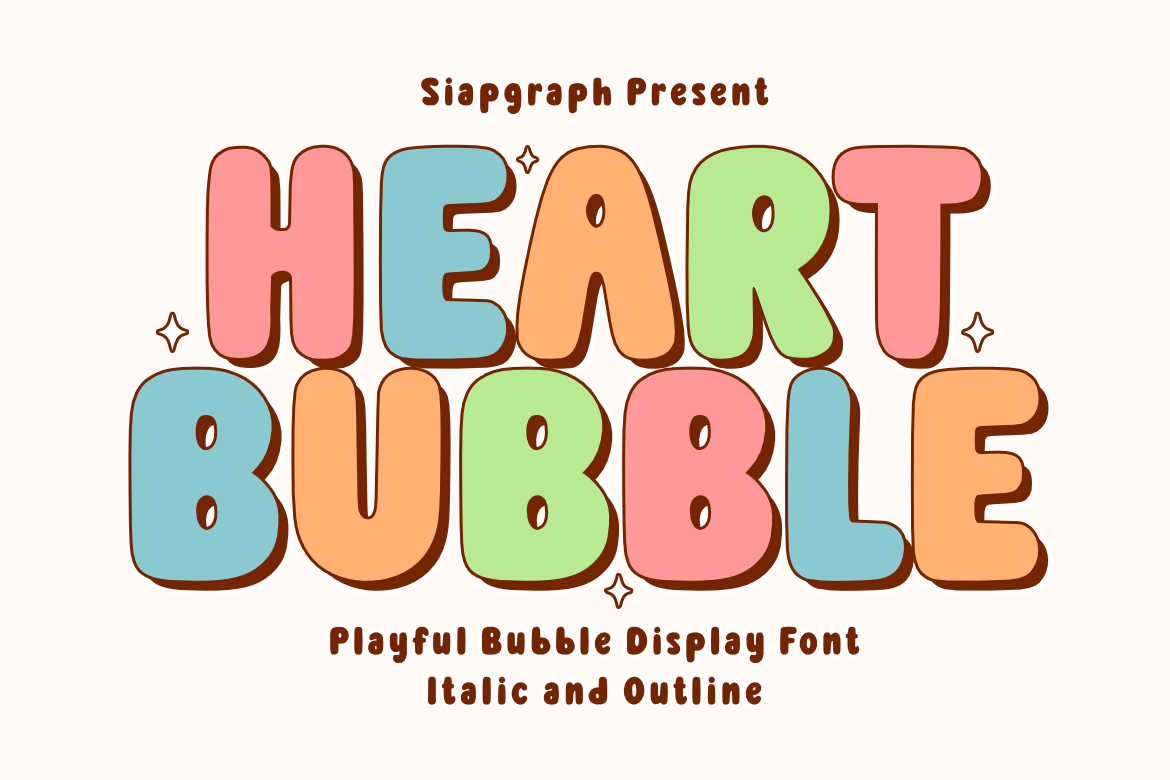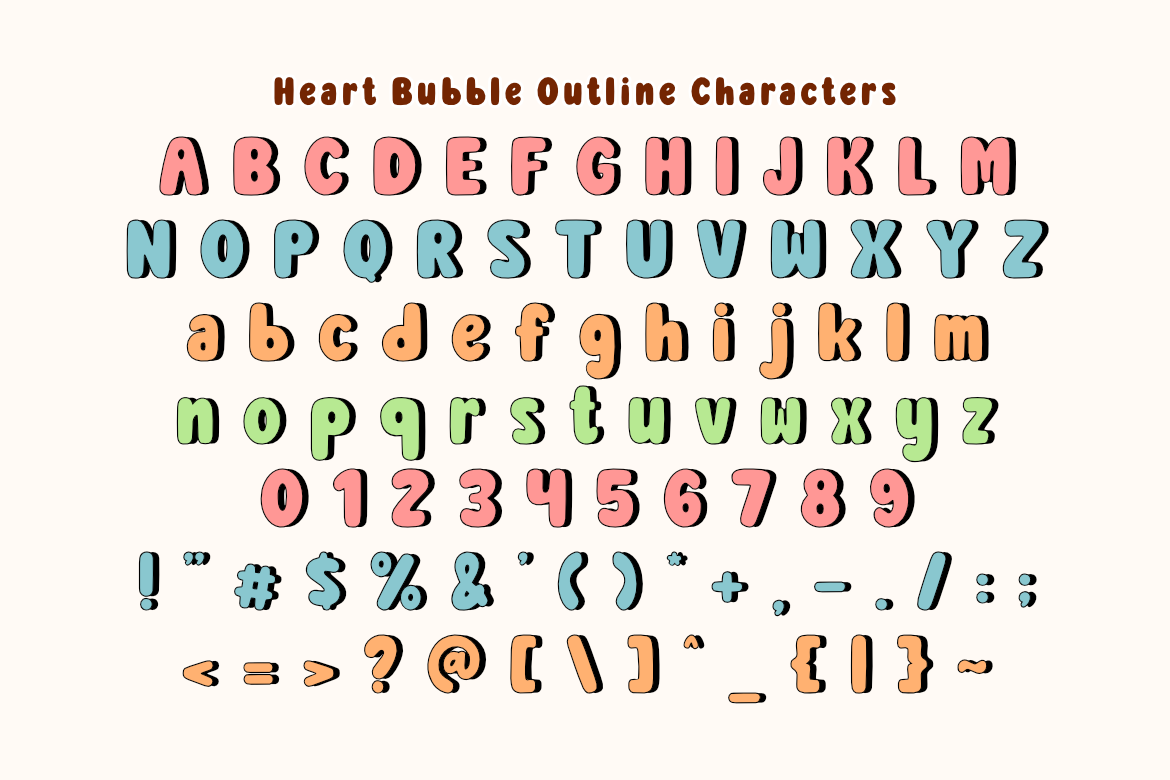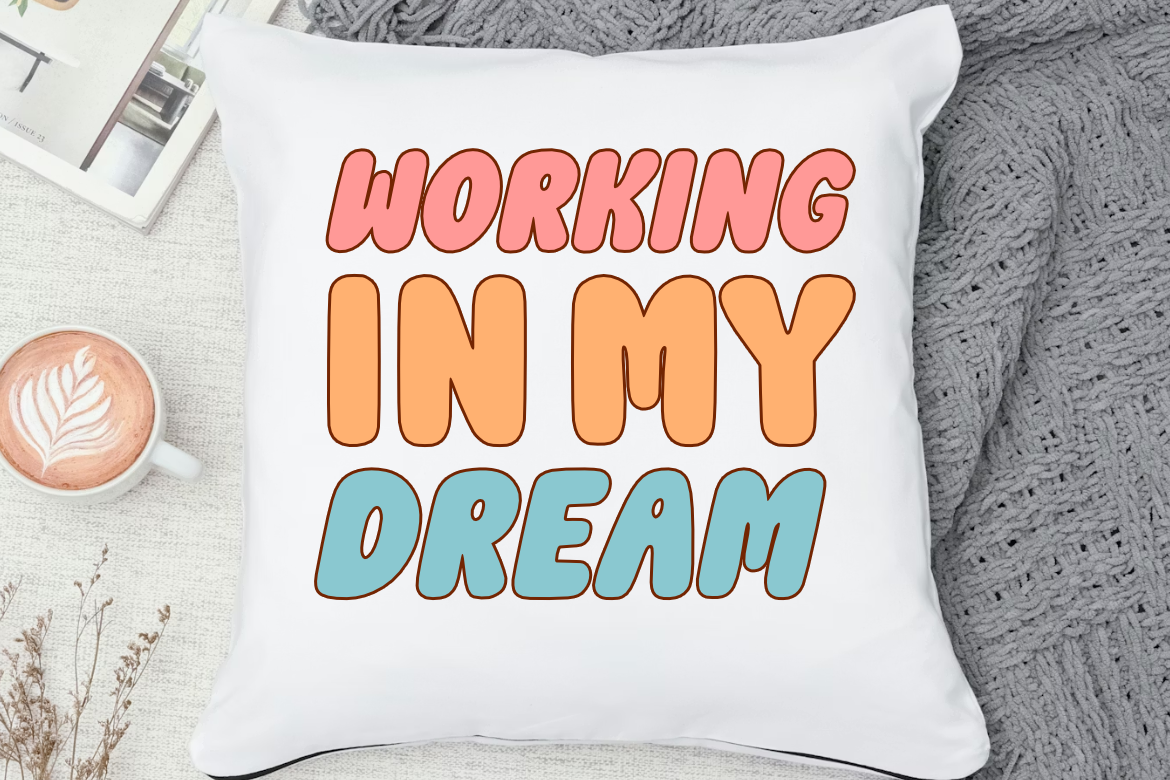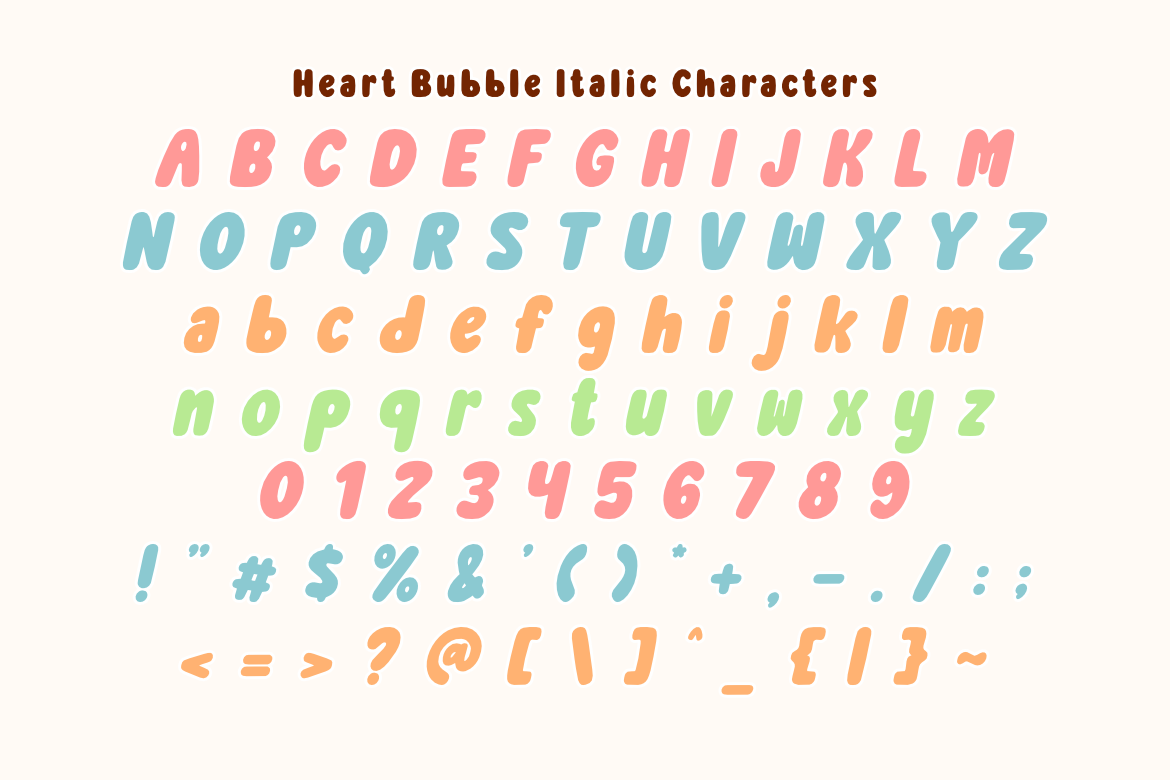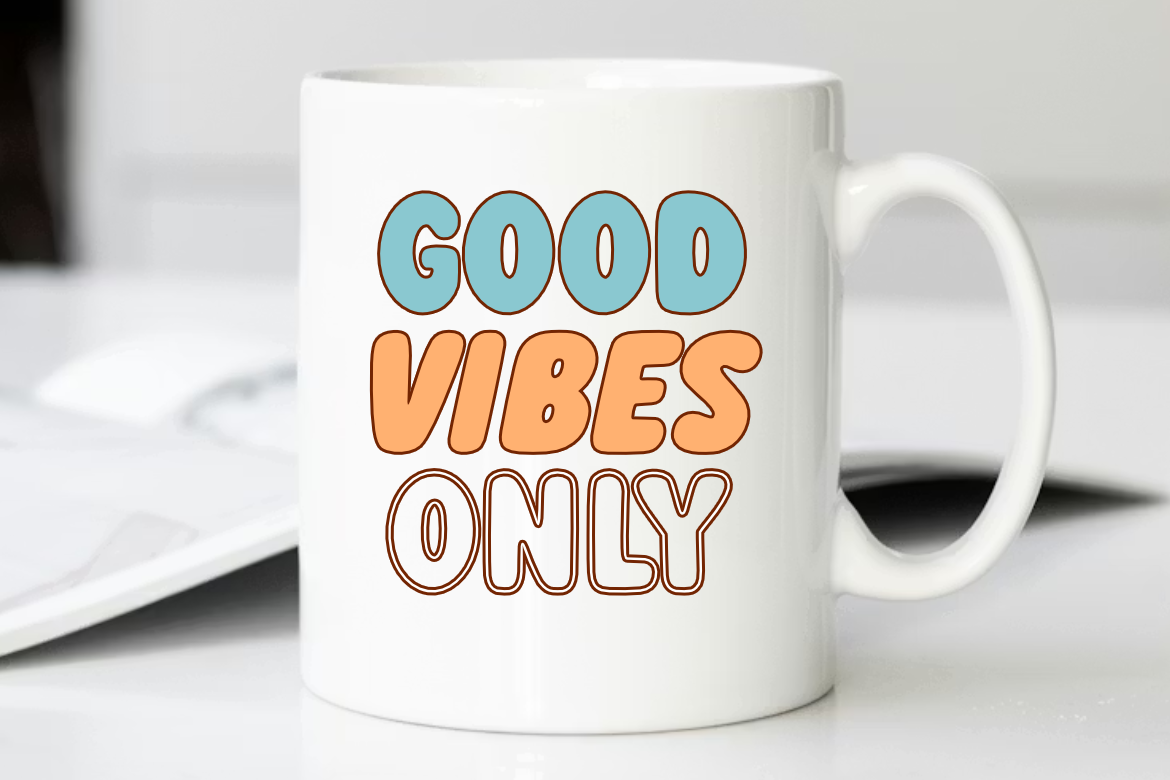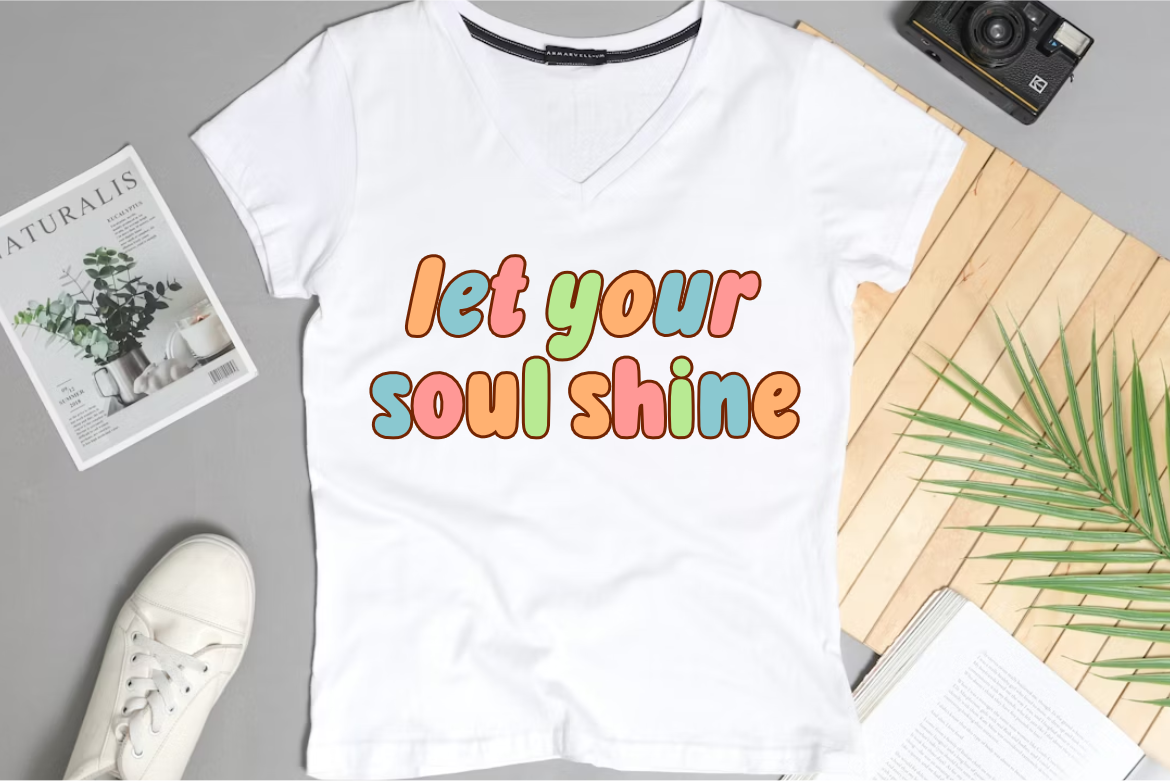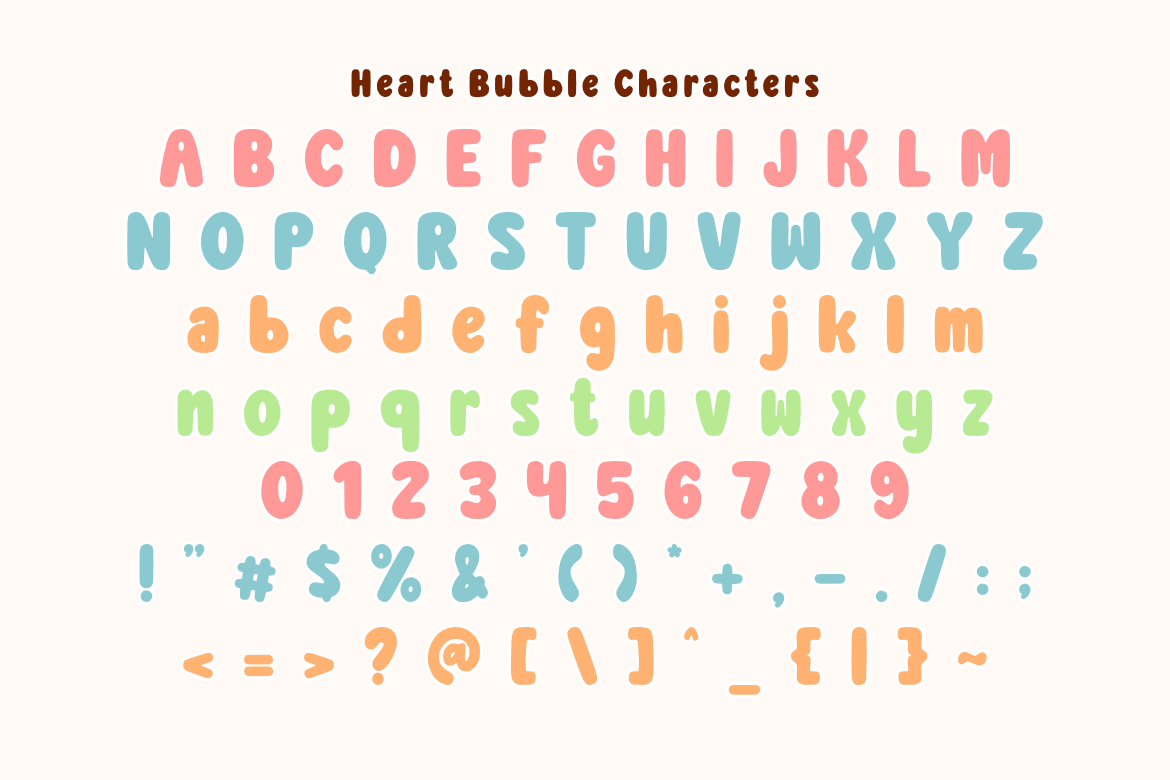
Heart Bubble - Playful Bubble Font for Cricut and Sublimation
Retro Groovy Handwriting Display Font for Cricut and Sublimation
Heart Bubble is a playful bubble display font inspired by the soft, organic shapes of candy and the bouncy, joyful energy of modern-retro bubble art. This charming typeface features smooth, rounded curves and a friendly personality that brings an instant sense of fun and cheerfulness to any creative project.
This font is an essential asset for creators in the Craft, POD (Print On Demand), and DIY communities. Its bold, thick structure and clean outlines are meticulously designed for easy cutting, smooth weeding, and high-quality printing on various surfaces.
Perfect for: creating high-impact SVG cut files, personalized kids' t-shirts, adorable stickers, nursery wall decor, birthday party invitations, custom mugs, social media quotes, and boutique branding. It also works beautifully for digital scrapbooking, tote bags, and playful logo designs.
Great for holiday themes such as Valentine's Day, Mother’s Day, Birthdays, and Summer celebrations, adding a sweet, vibrant, and lighthearted touch to all your festive seasonal creations!